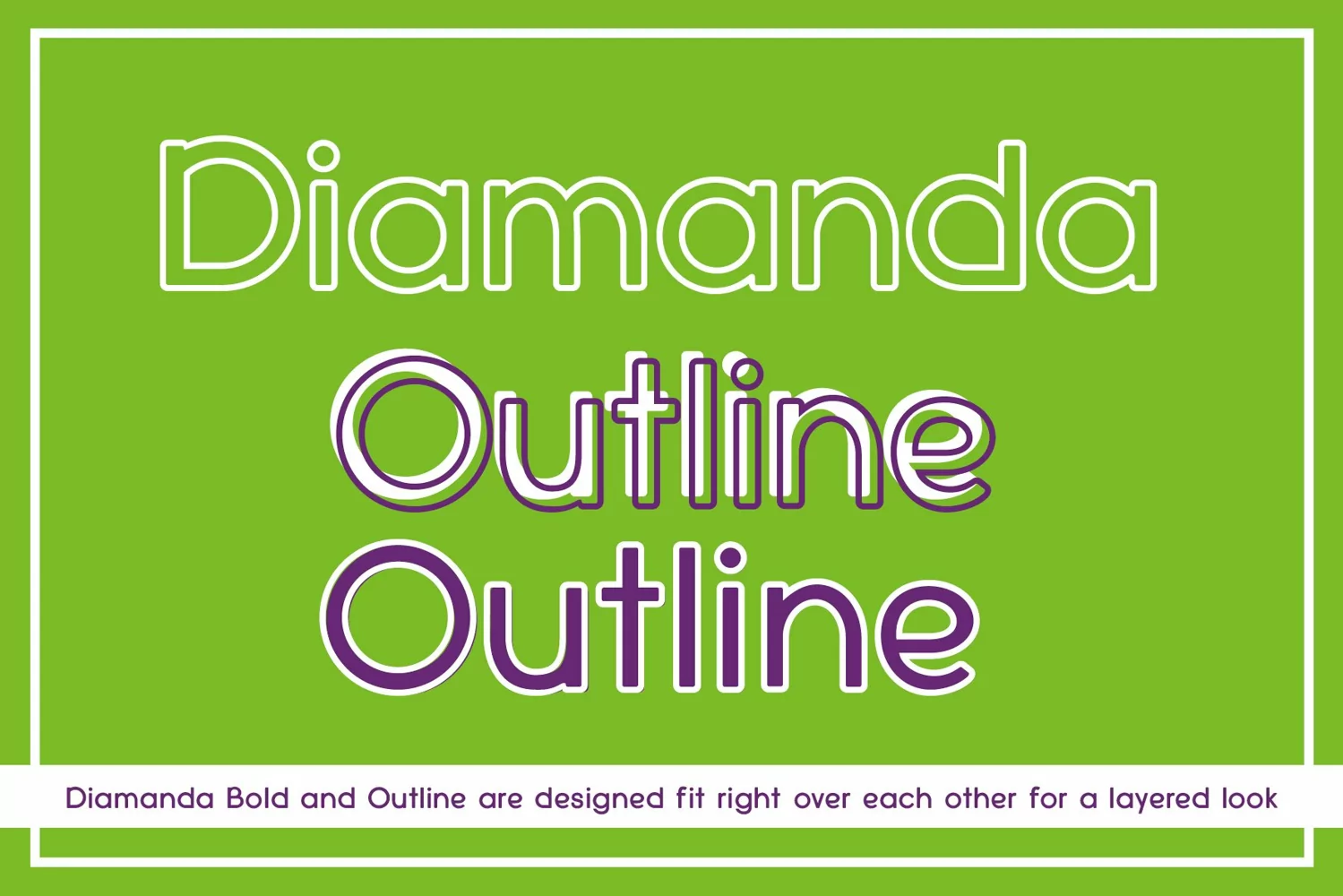
Diamanda Oulines Duo Font
Diamanda and oulines is a cute crafting duo font perfect for wedding invitations, signs, logos, t-shirts etc.
Diamanda light, regular and bold
Outlines